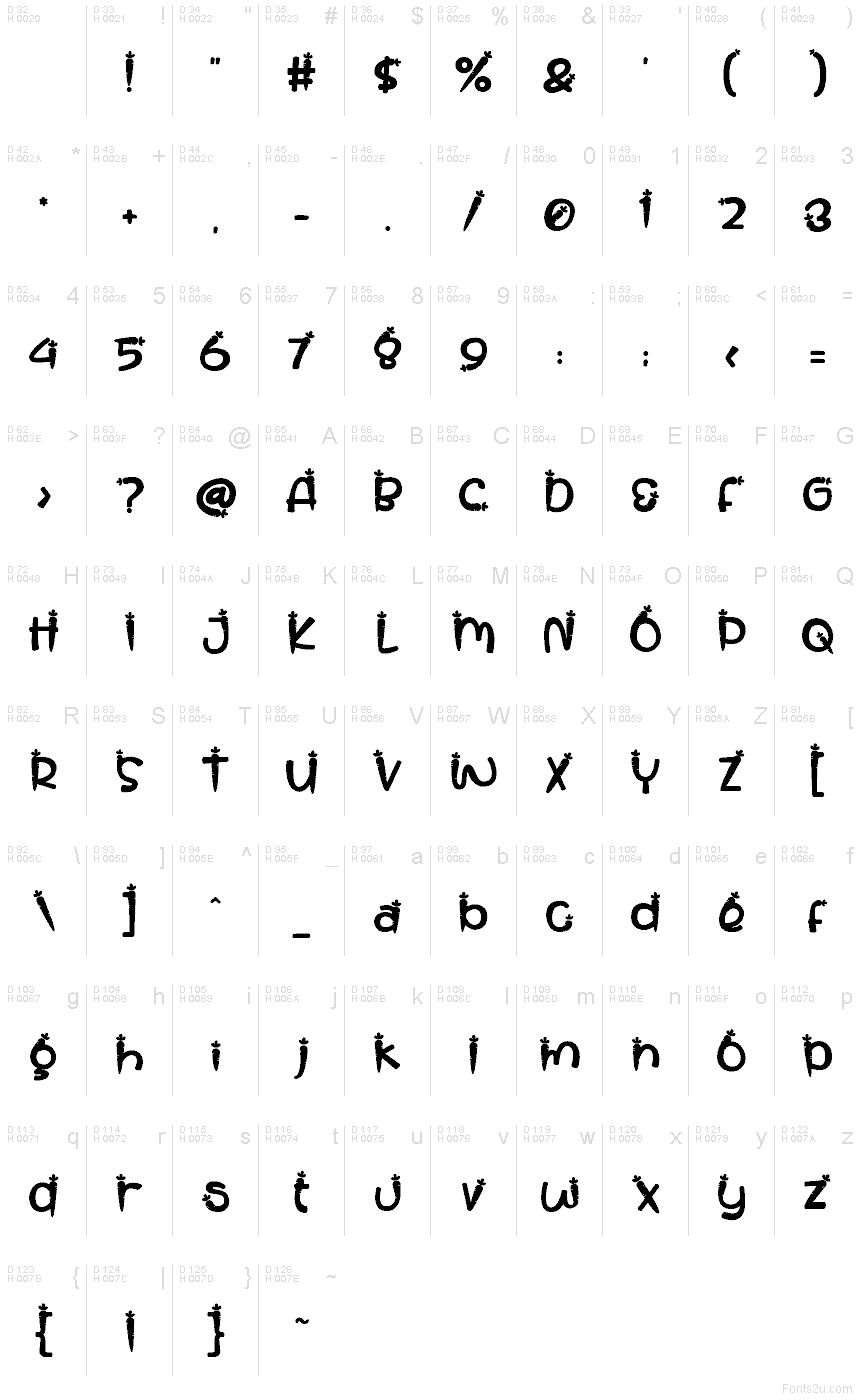
Pastel Palooza CarrotBlock
Pastel Palooza CarrotBlock font by PutraCetol Studio is a holiday easter font presenting an easure and unique style. This calligraphy typeface holds many cheerful and decorative stylistic parts such as smooth bits, cute bunny ears, random thin lines, etc.
Use Pastel Palooza CarrotBlock for making Easter themed holiday promotions, printed cards, flyers or posters. This free handwritten font will look great wrapped around a tasty chocolate egg or helping make other festival pastries fun and enticing to the customer’s eye. Pastel Palooza CarrotBlock can also decorate T-shirts or hoodies with great quotes.